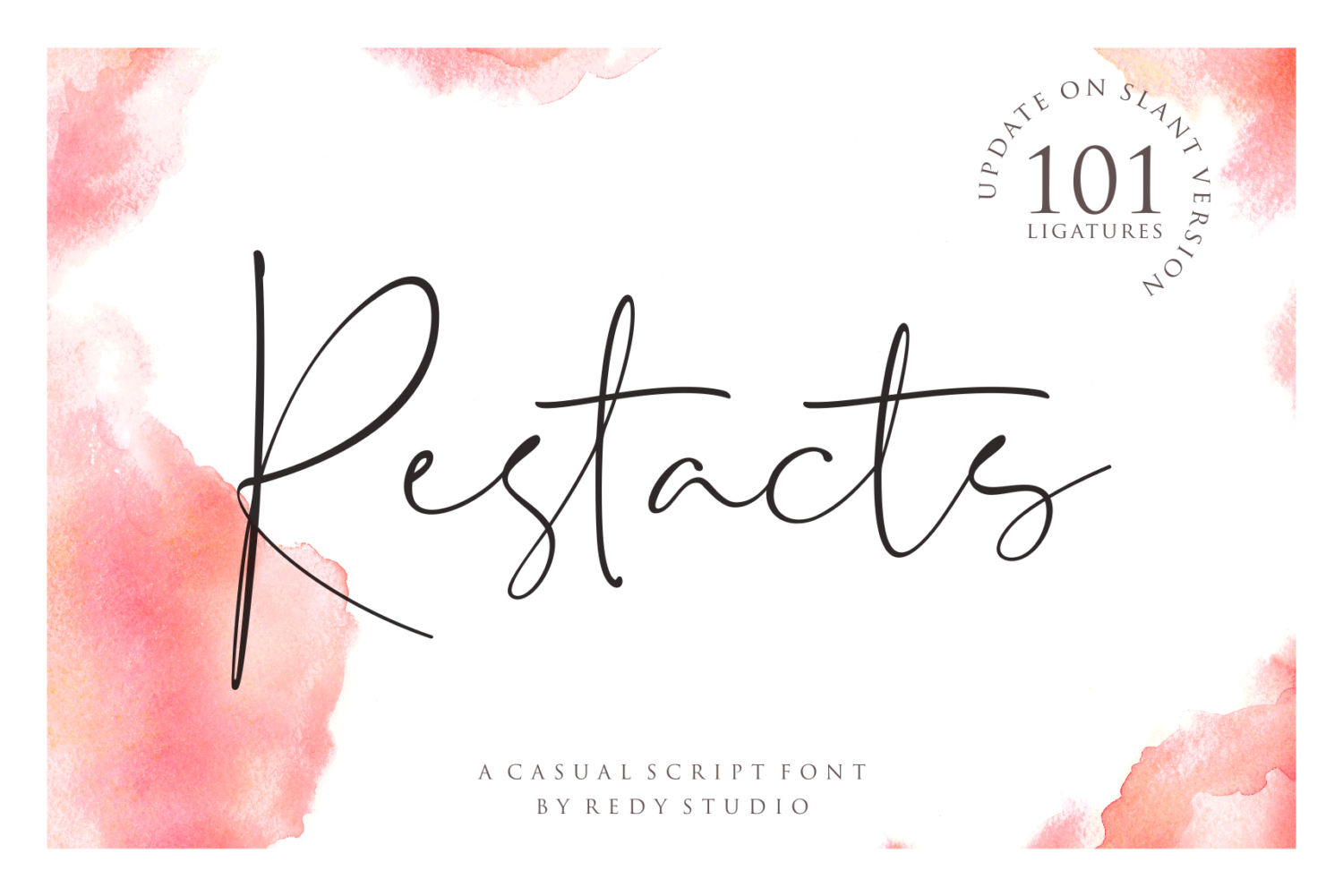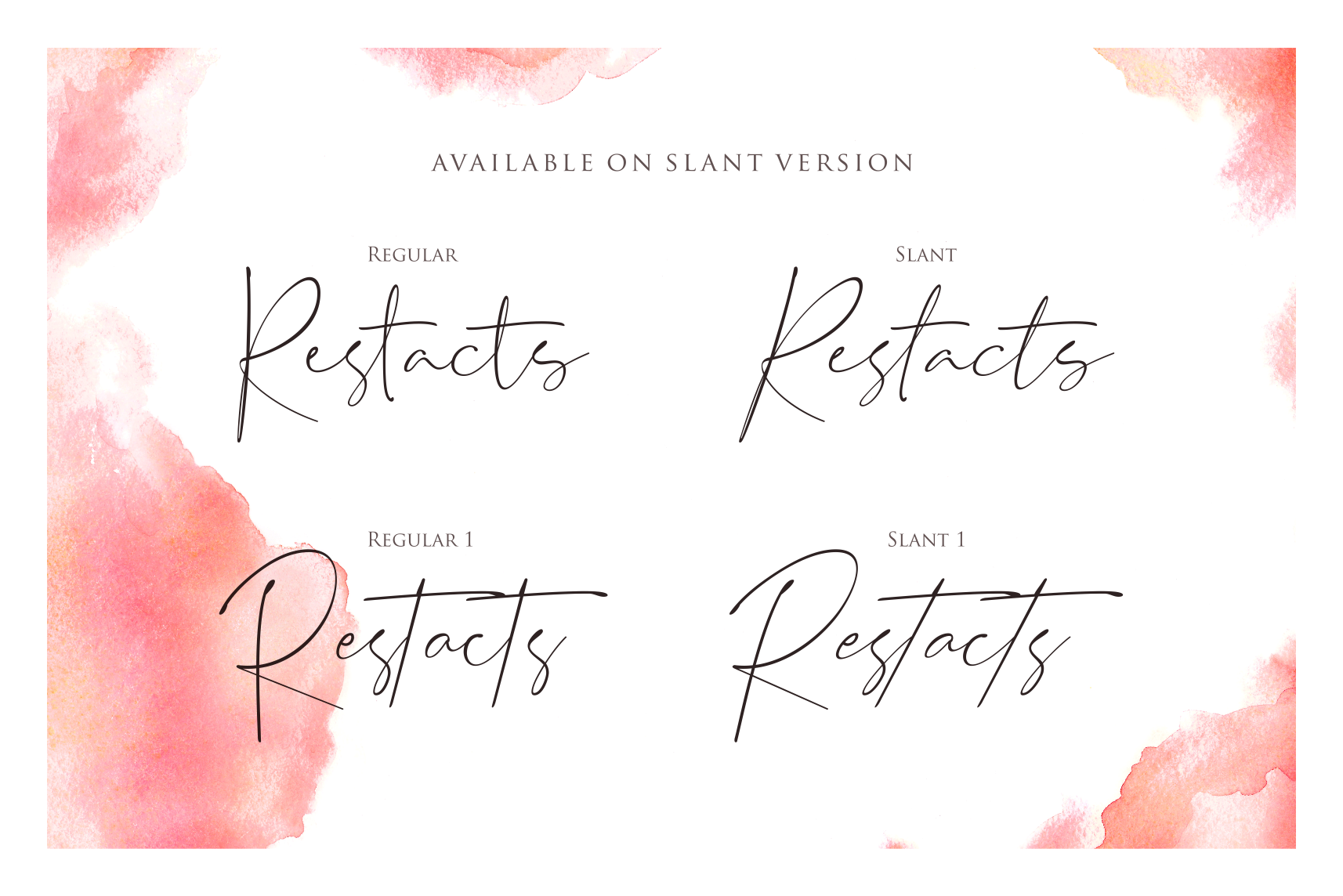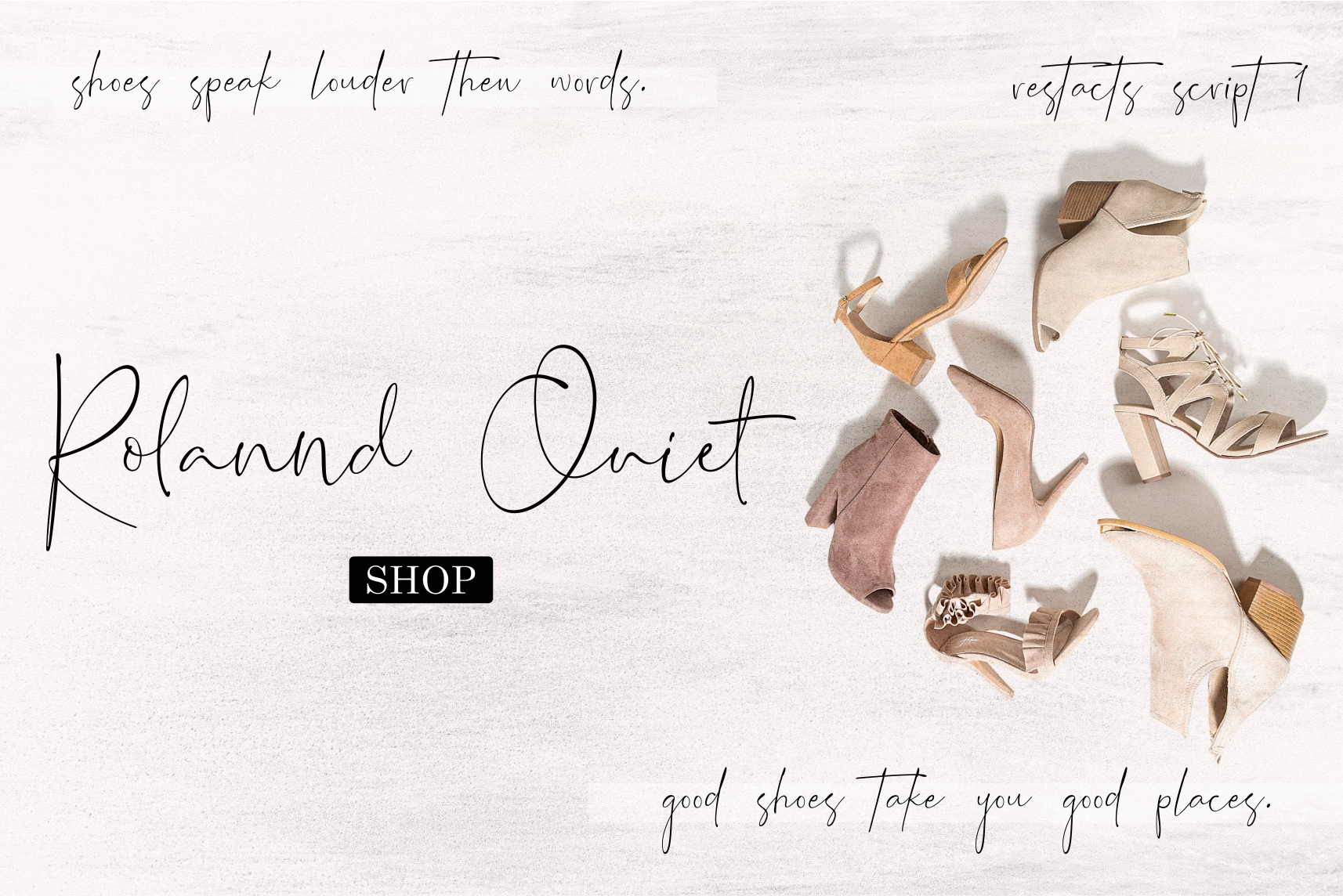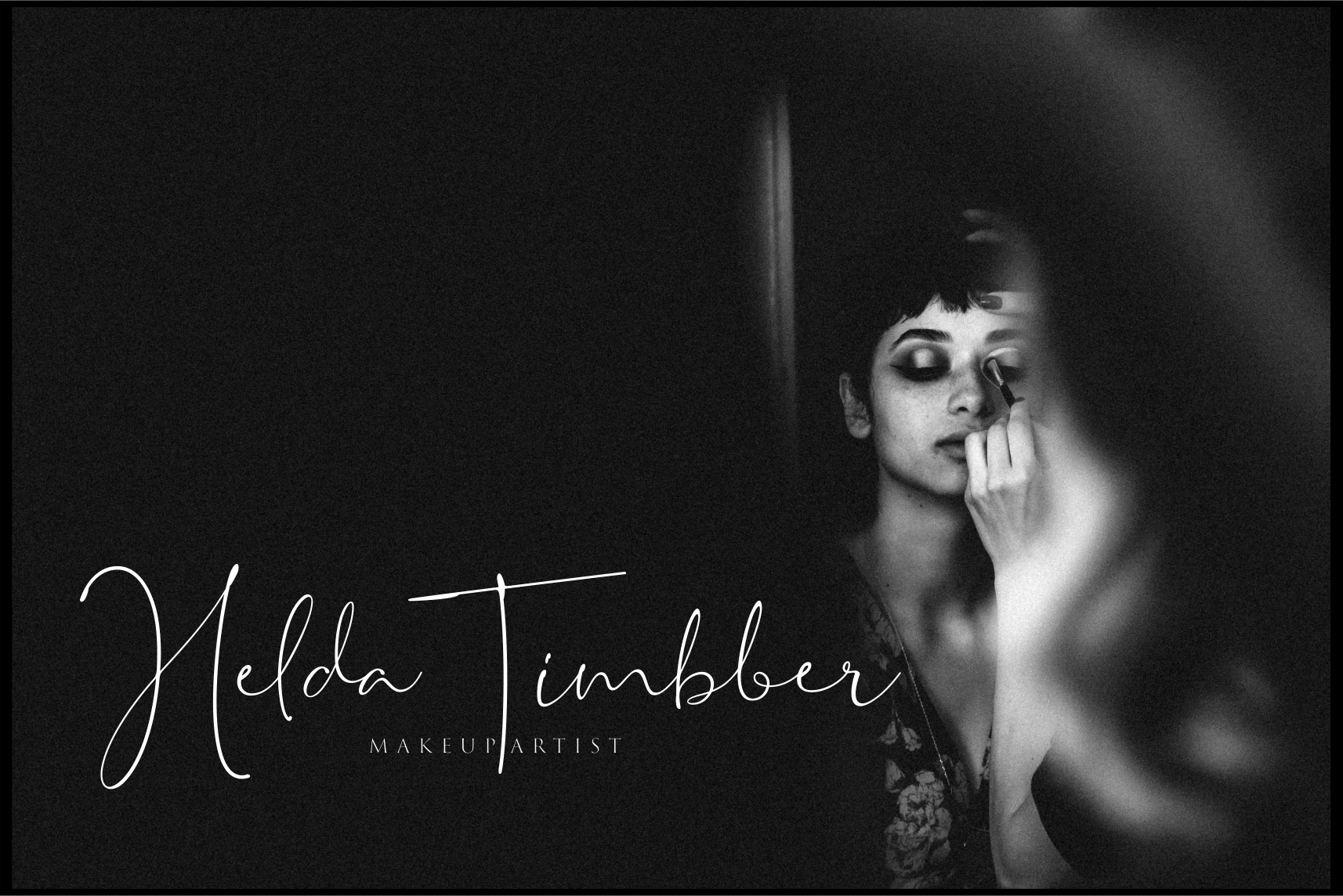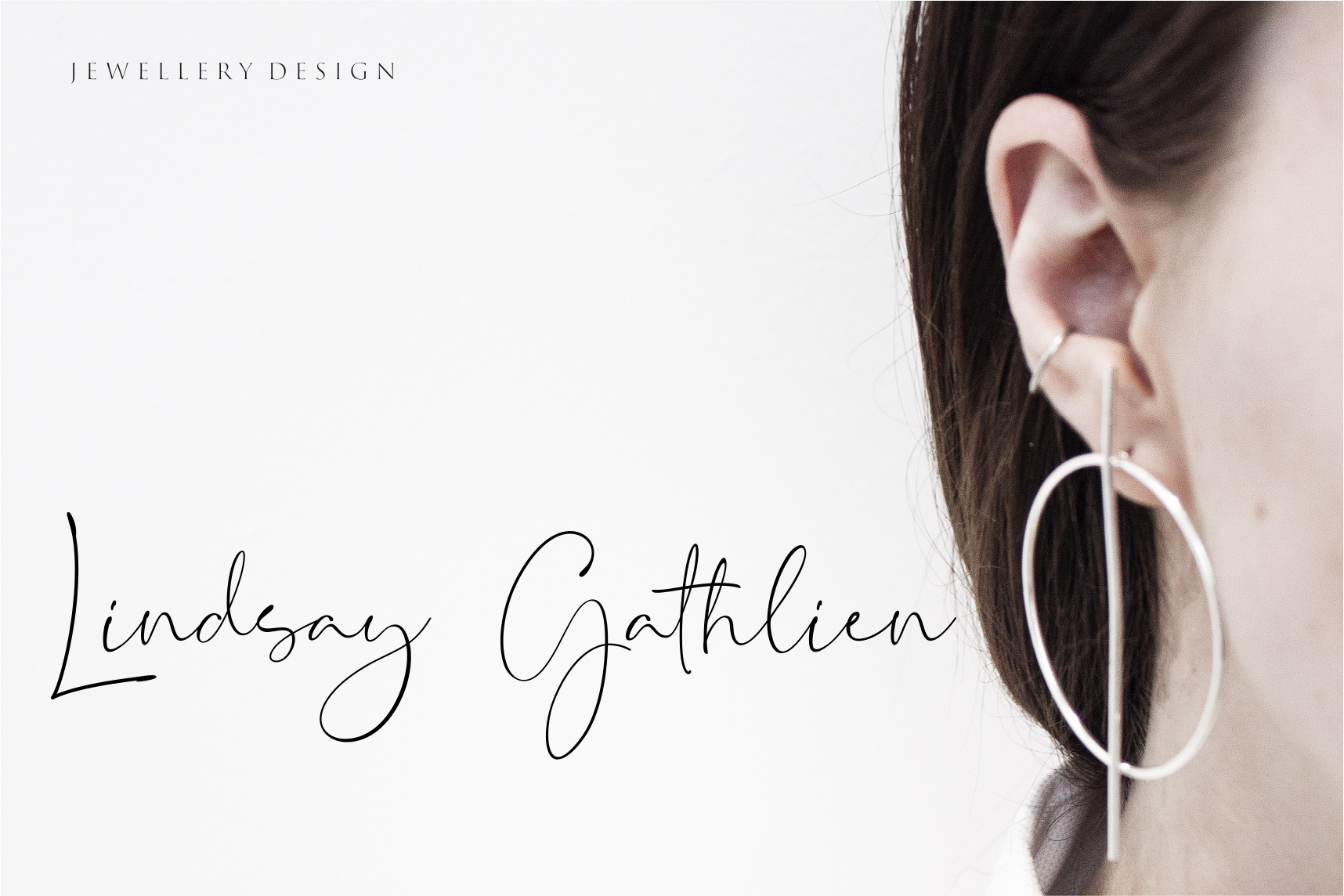
Restacts Script Free Font
Introduce Restacts Script Free Font, here we provide 2 variants, the first one is Restacts Script which is more casual and feminine, the second variant is more elegant and bolder. Both of them look smooth and you can see our preview for more details. Restacts Script provides beautiful letter essence for any design project including Branding, social media, logo, wedding invitation, photography overlays, etc. This free typeface was designed by a talented NFAJRY REDY. If you like it don’t forget to check out the full version.